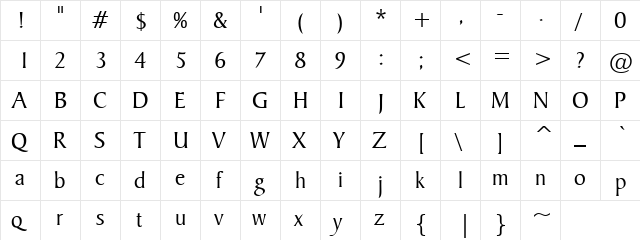
prophecy Regular
Design Context for prophecy Typeface
prophecy takes a measured approach to typography — its balanced proportions and neutral character make it a reliable workhorse for both digital and print work.